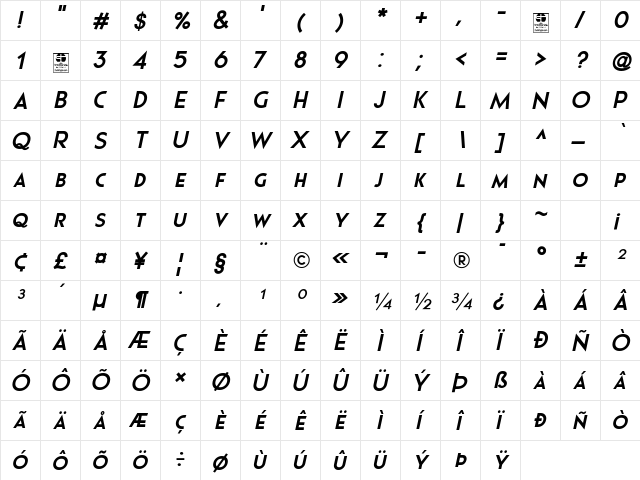
Pages Grotesque Demo Bold Italic
Bold Italic · StudioTypo Mehmet Abac ·
Design Context for Pages Grotesque Demo Typeface
Pages Grotesque Demo offers clean, dependable letterforms without strong stylistic allegiance, making it a practical choice for designers who need flexibility. The slanted form adds forward momentum and visual energy. The heavy weight commands attention and anchors typographic hierarchies.
Pro Tip: Try Pages Grotesque Demo for annotation and caption copy alongside an upright companion — the contrast in angle creates a dynamic but ordered typographic system.